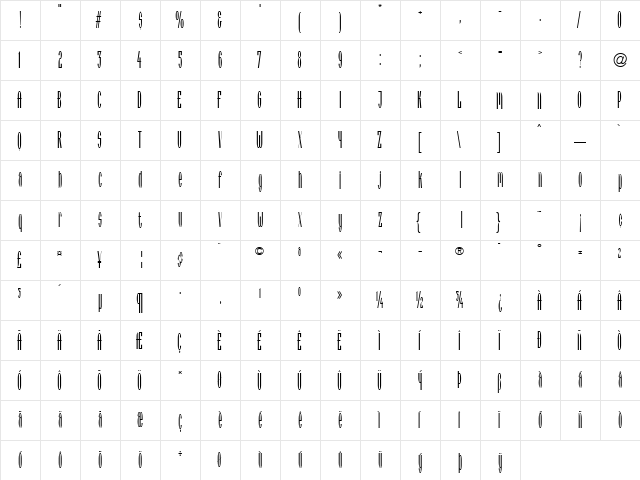
Arcadia A
Design Context for Arcadia Typeface
Arcadia offers clean, dependable letterforms without strong stylistic allegiance, making it a practical choice for designers who need flexibility.
Pro Tip: Use Arcadia in both headline and body roles to test its range before committing to a single application.